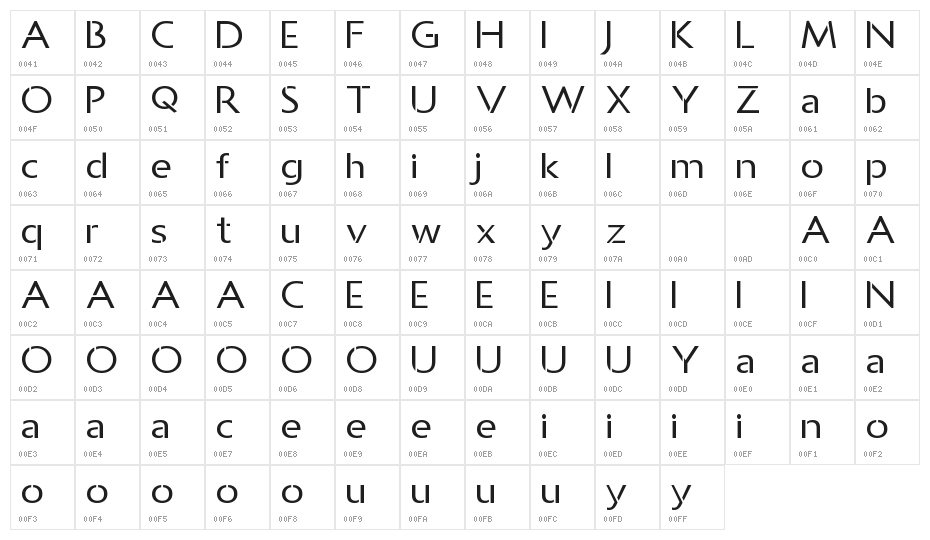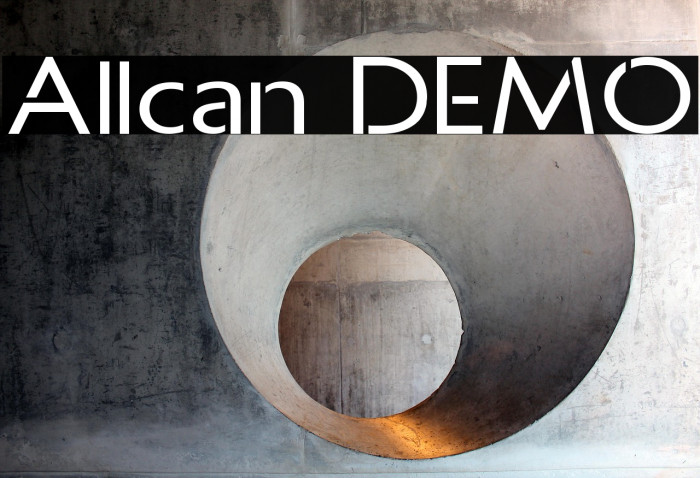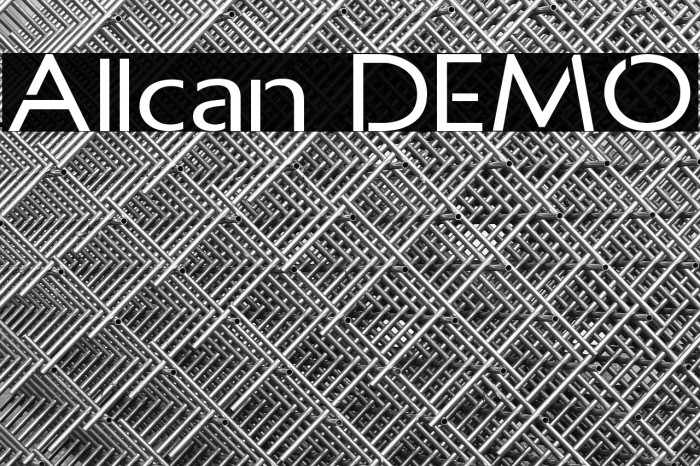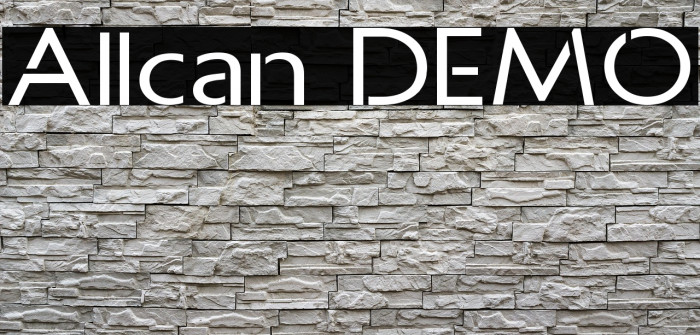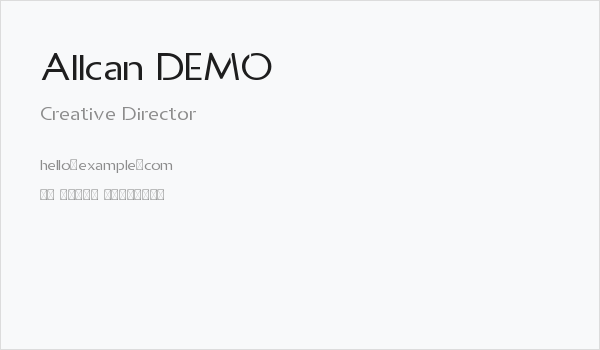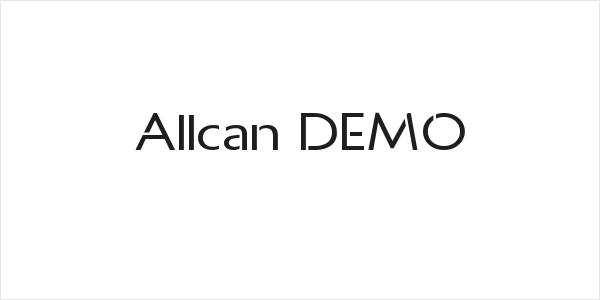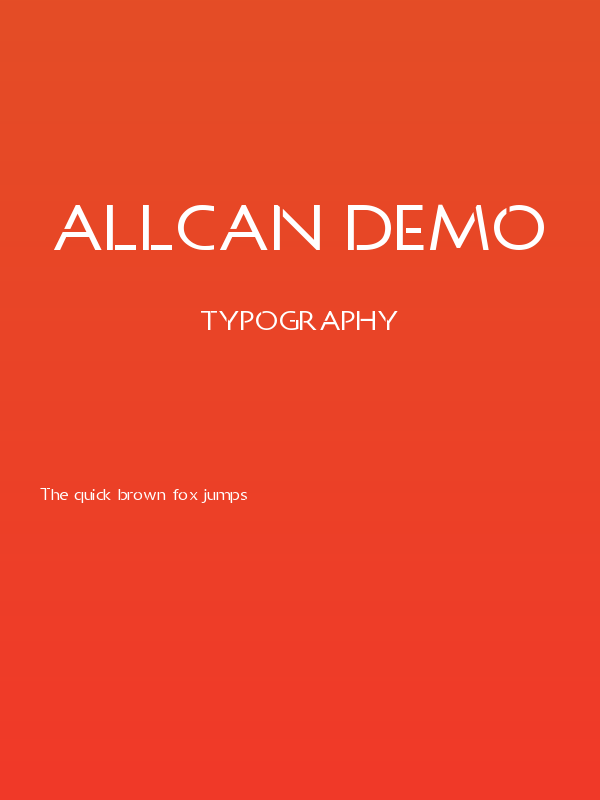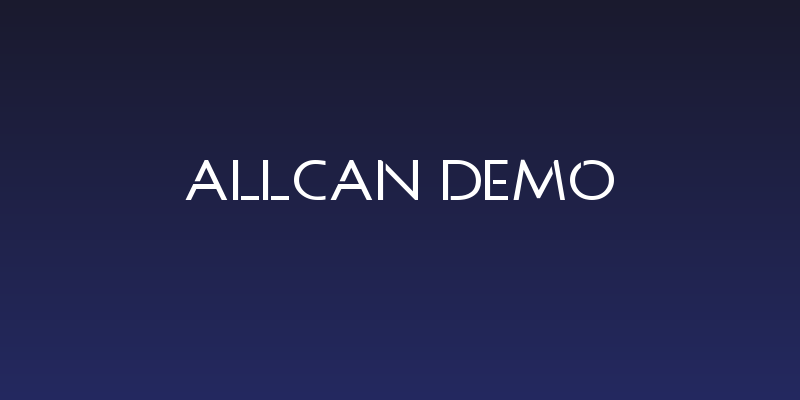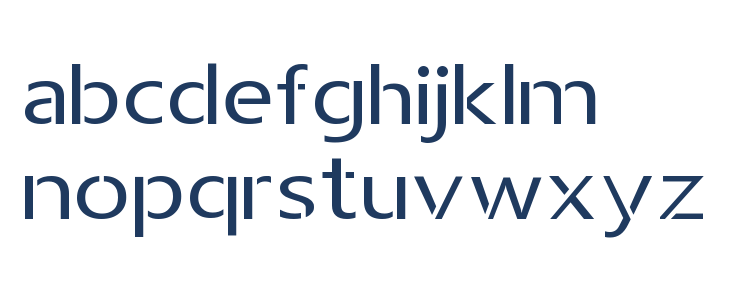
Allcan DEMO Font
Allcan DEMO Description
This font features a modern and sleek design with geometric influences. The characters are crafted with clean lines and a uniform stroke width, giving it a contemporary and minimalist appearance. The uppercase letters exhibit a strong presence with sharp angles and a balanced structure, while the lowercase letters maintain a consistent style with rounded edges that soften the overall look. The numerals and special characters are designed to match the font's modern aesthetic, ensuring a cohesive appearance across all text. This font is versatile and can be used in various design projects that require a modern and professional touch.
| Proposed Projects | Ideal for branding, advertising, web design, and editorial layouts. |